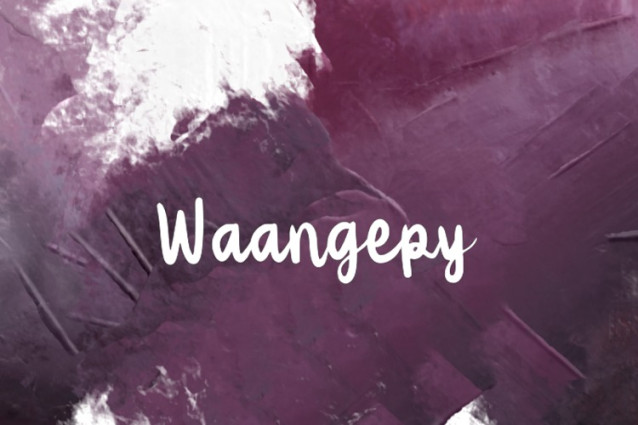
Waangepy Font
Waangepy Font, perfectly fit for branding, logo, wedding things, greeting cards, fashion, lookbook, marketing promotion, anytime you want to look fancy elegant but still casual.